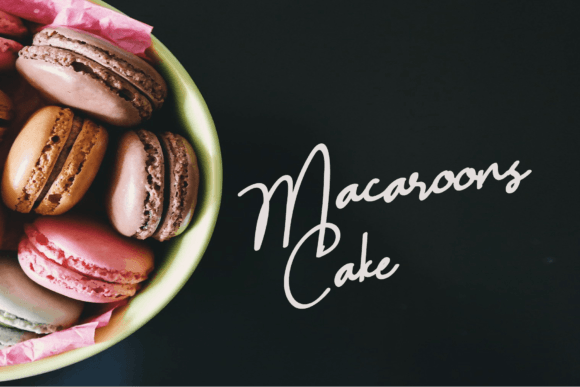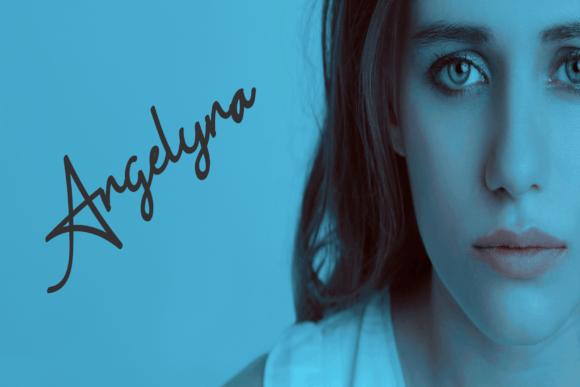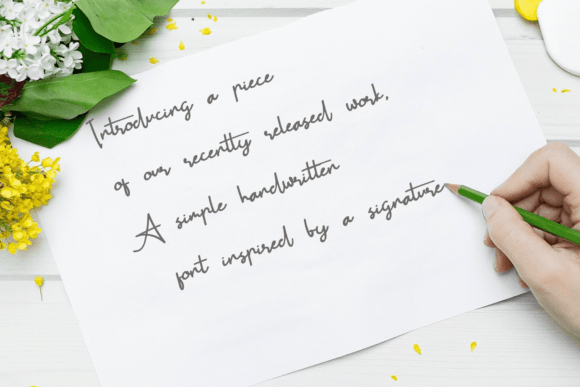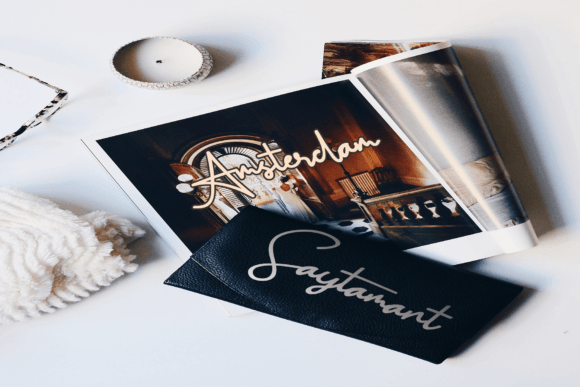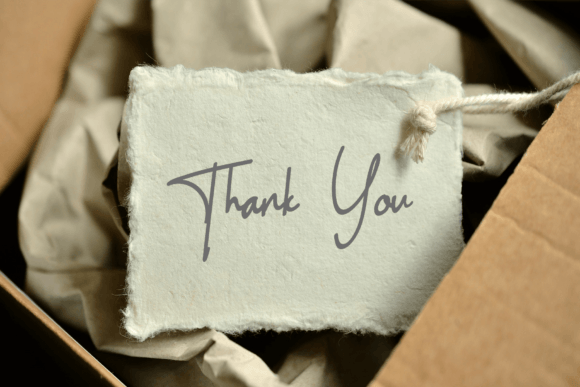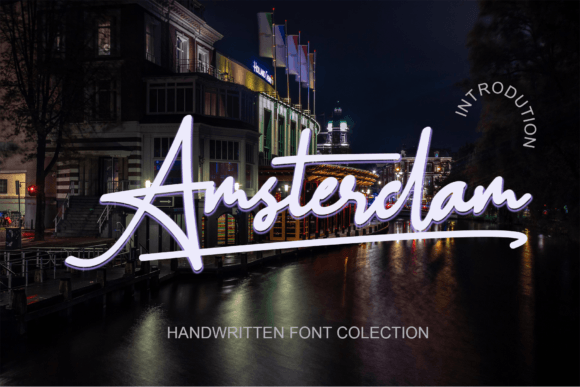
Introducing Amsterdam Font: Elevate Your Designs with Timeless Elegance
Are you on the lookout for a stylish handwritten font that exudes a contemporary atmosphere and impeccable form? Look no further than Amsterdam Font, a beautiful typeface inspired by timeless classic calligraphy. Designed to bring balance and variation to your projects, Amsterdam Font is the perfect addition to your typography arsenal.
The Inspiration Behind Amsterdam Font
Amsterdam Font draws inspiration from the art of traditional calligraphy, where the elegance of handwritten script meets modern sensibilities. The result is a font that feels both classic and contemporary, making it versatile enough to be used in a wide range of design applications. Whether you’re working on a branding project, crafting a stylish invitation, or creating engaging content, Amsterdam Font is sure to make a lasting impression.
Key Features of Amsterdam Font
- Stylish Handwritten Design: Amsterdam Font boasts a stylish handwritten design that adds a touch of personality to any project.
- Contemporary Atmosphere: With its clean lines and balanced proportions, Amsterdam Font brings a contemporary feel to your designs.
- Impeccable Form: Each letterform has been carefully crafted to ensure impeccable form and optimal legibility.
- Balanced and Varied: Amsterdam Font offers a range of variations, making it easy to create visually interesting and dynamic text.
Why Choose Amsterdam Font?
So why choose Amsterdam Font over other typefaces? Here are just a few compelling reasons:
- Unique and Memorable: Amsterdam Font’s distinctive style ensures that your designs stand out from the crowd and leave a lasting impression.
- Versatile: From elegant headings to stylish body text, Amsterdam Font is versatile enough to be used in a wide range of design applications.
- Easy to Read: With its clear and legible design, Amsterdam Font ensures that your message is communicated effectively.
Using Amsterdam Font in Your Designs
Amsterdam Font is incredibly easy to use and can be incorporated into your designs in a variety of ways:
- Branding and Logos: Use Amsterdam Font to create a stylish and memorable brand identity.
- Invitations and Stationery: Add a touch of elegance to your invitations, business cards, and other stationery with Amsterdam Font.
- Digital Content: Use Amsterdam Font to create engaging and visually appealing digital content, such as blog posts, social media graphics, and more.
Tips and Tricks for Getting the Most Out of Amsterdam Font
Here are a few tips and tricks to help you get the most out of Amsterdam Font:
- Experiment with Different Sizes: Amsterdam Font looks great in a range of sizes, from large headings to smaller body text.
- Play with Color: Amsterdam Font pairs well with a range of colors, so don’t be afraid to experiment and find the perfect combination for your design.
- Mix and Match: Try pairing Amsterdam Font with other typefaces to create a unique and visually interesting design.
Amsterdam Font is a stylish and versatile typeface that is sure to elevate your designs. With its timeless elegance, impeccable form, and contemporary atmosphere, Amsterdam Font is the perfect choice for designers and crafters looking to add a touch of sophistication to their projects. So why wait? Download Amsterdam Font today and discover the difference it can make in your designs.